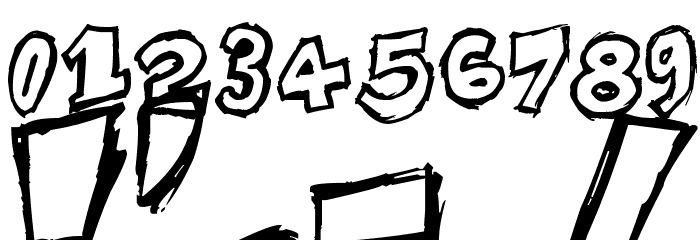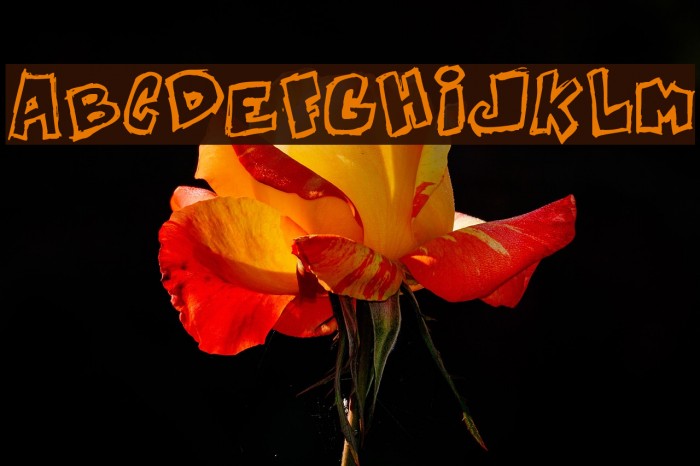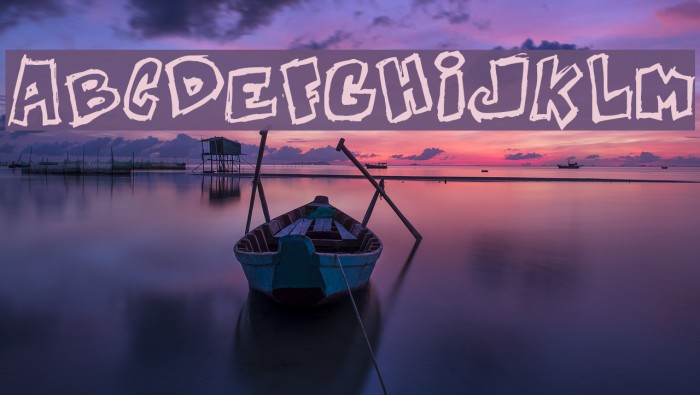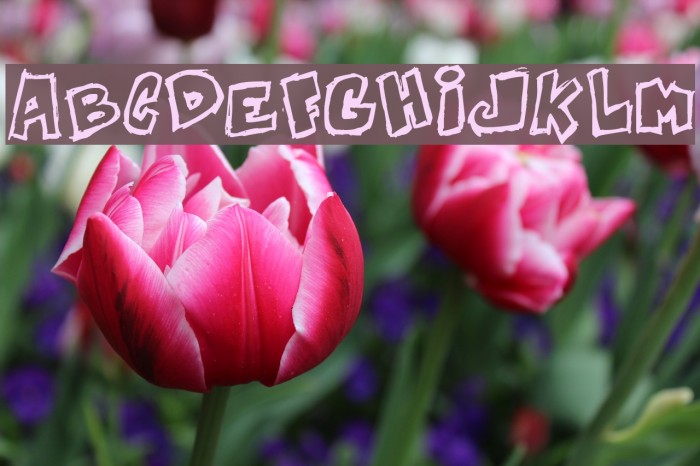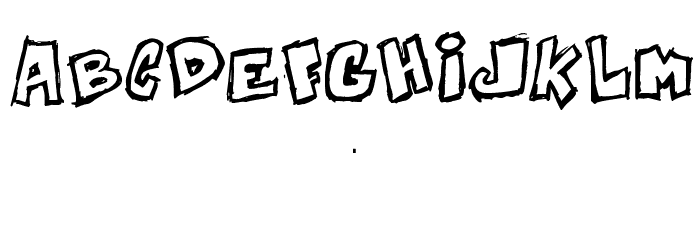
Komikoz Font
This playful and energetic font features bold, irregular strokes that give it a hand-drawn, comic book style. The letters are slightly tilted and vary in size, adding to the whimsical and informal appearance. The uppercase and lowercase letters maintain a consistent style, with exaggerated curves and angles that create a sense of movement and fun. The numbers and special characters follow the same lively design, making the font suitable for projects that require a touch of humor and creativity. The overall look is casual and approachable, perfect for engaging a younger audience or adding a playful element to any design.
A bold, comic-style font with irregular, hand-drawn strokes.
• Proposed Projects: Ideal for comic books, children's books, playful branding, and casual invitations.
• Category: Decorative/Display
• Bold: Yes
• Italic: No
• Weight: Bold
• Width: Normal
• Character Spacing: Normal
• Contrast: Low
• Overall Style: Playful, Comic
• Use Case: Headlines, Logos, Posters